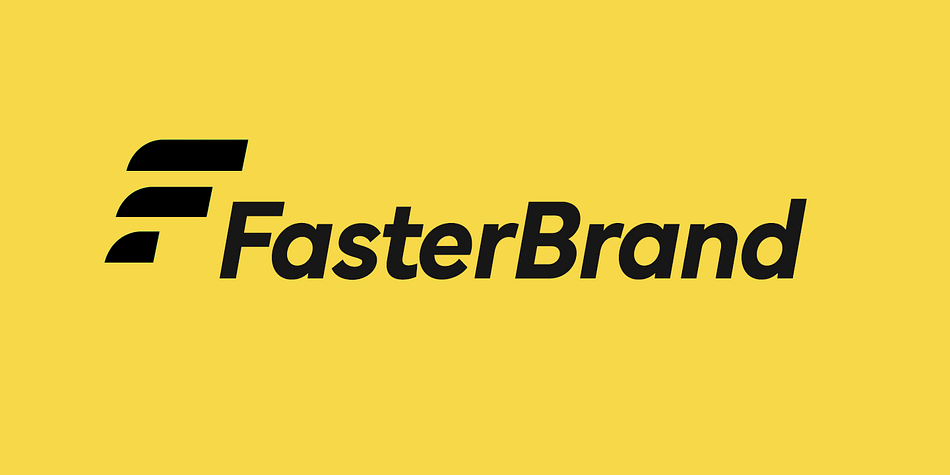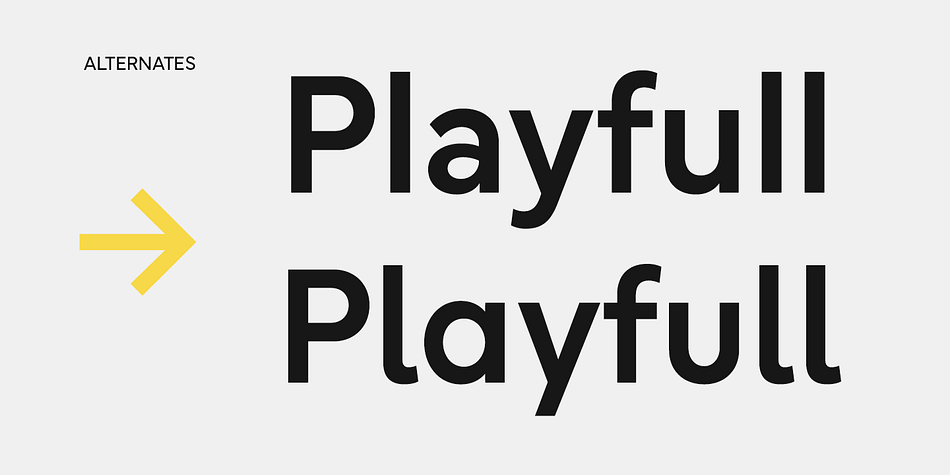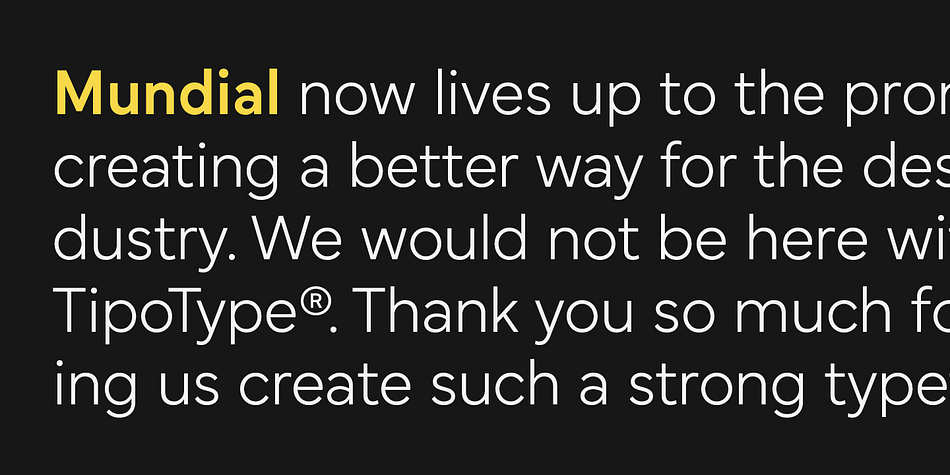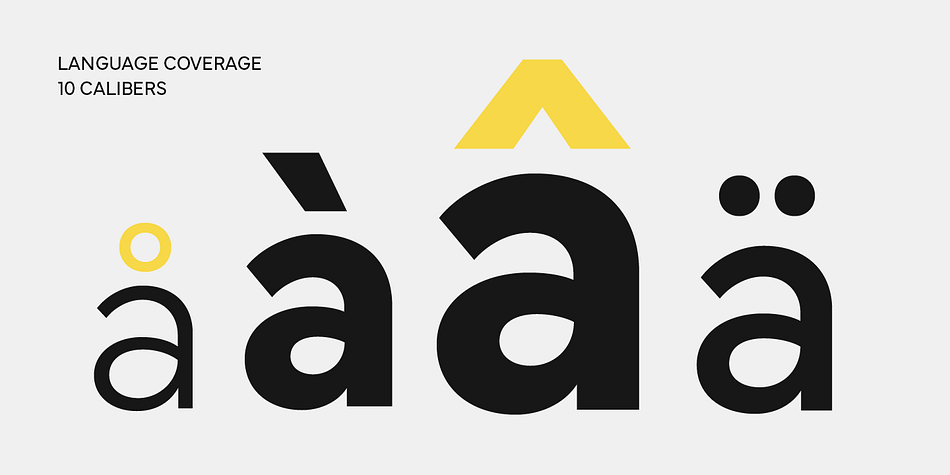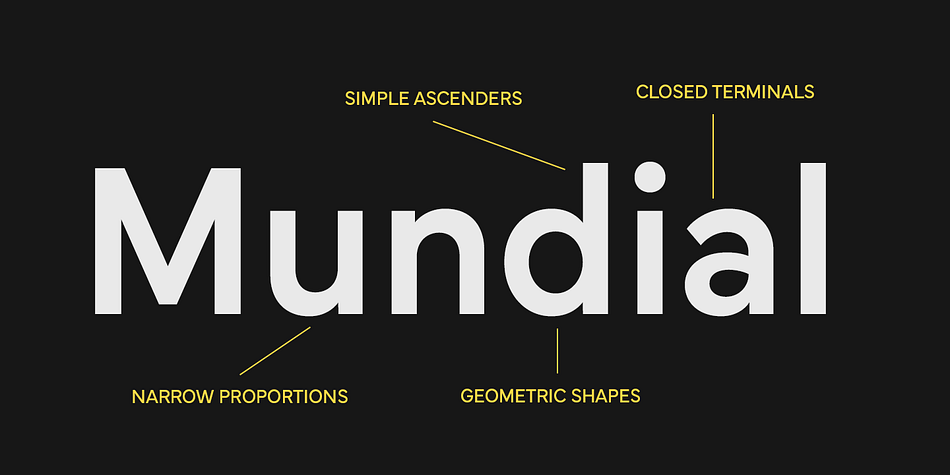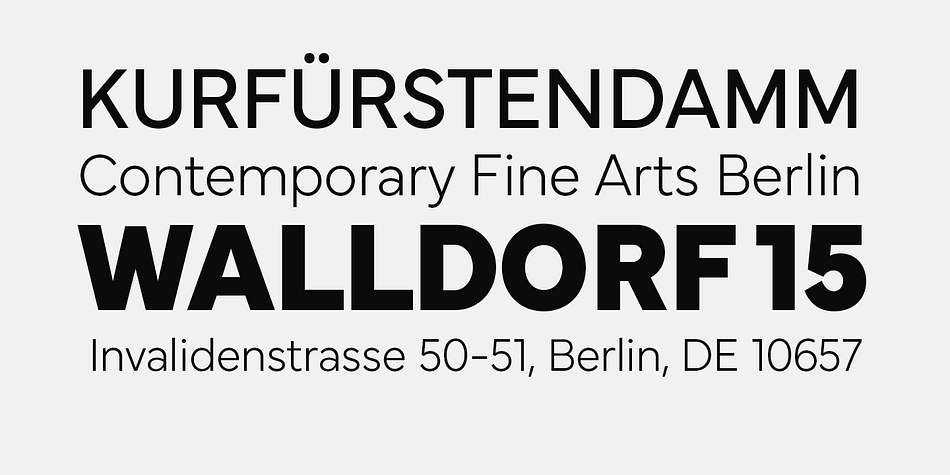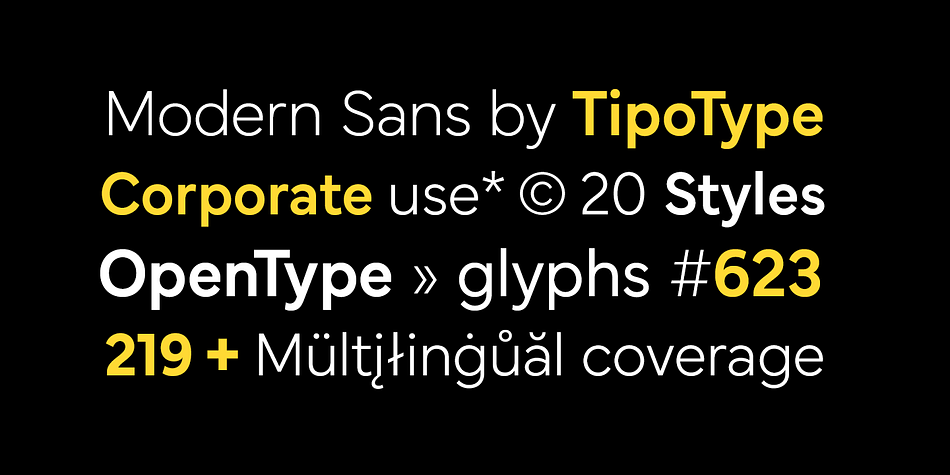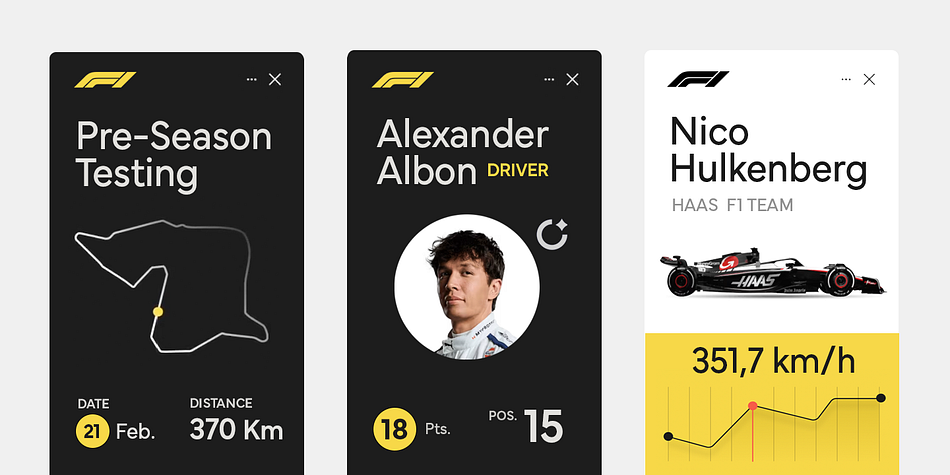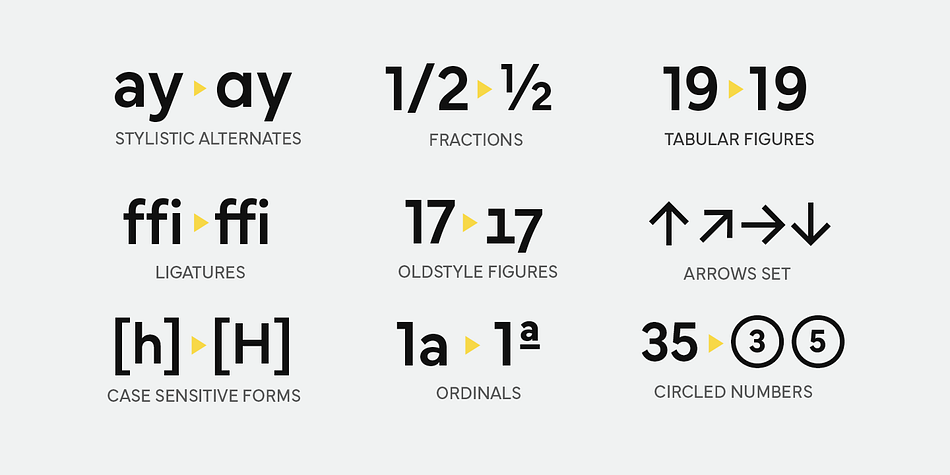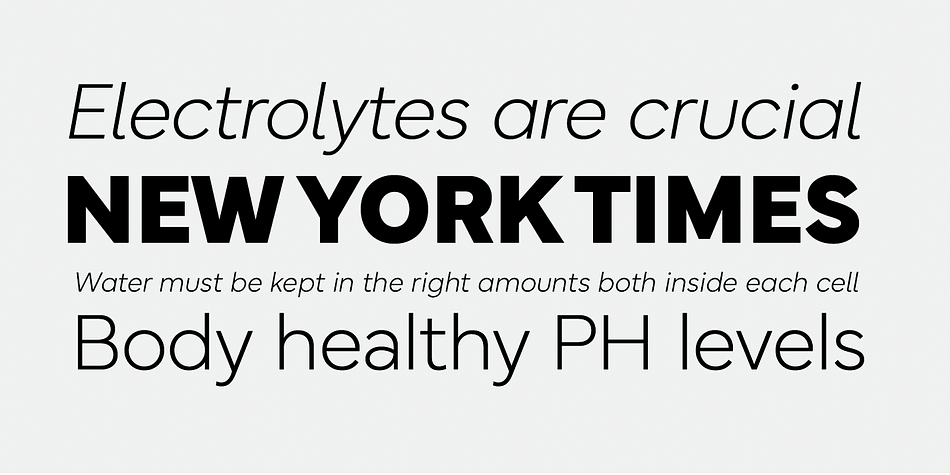
Mundial Narrow
Designed by Martin Sommaruga and Vicente Lamónaca, Mundial Narrow is a sans serif font family. This typeface has twenty styles and was published by TipoType.
Mundial Narrow has ideal proportions to be applied not only in corporate identity but also in texts. Its shapes and cosmopolitan spirit are inherited from its mother typeface: Mundial.
In this font for corporate uses, different typographic traditions are combined, achieving a unique synthesis of modernity with the confidence of tradition and history.
These new proportions and its improved range of weights make Mundial Narrow a versatile font not only for identity projects but also for editorial profile projects.
Designers Martin Sommaruga, Vicente Lamónaca